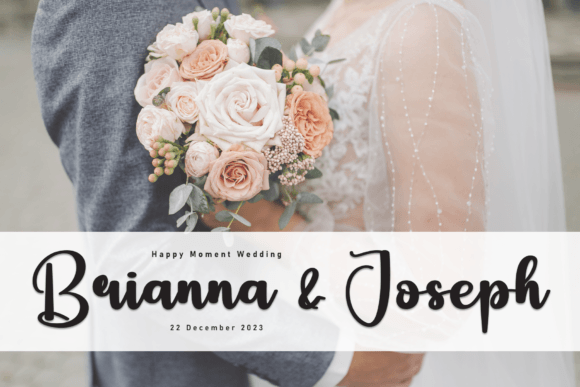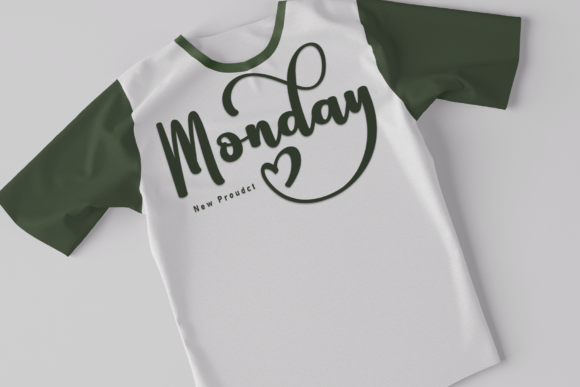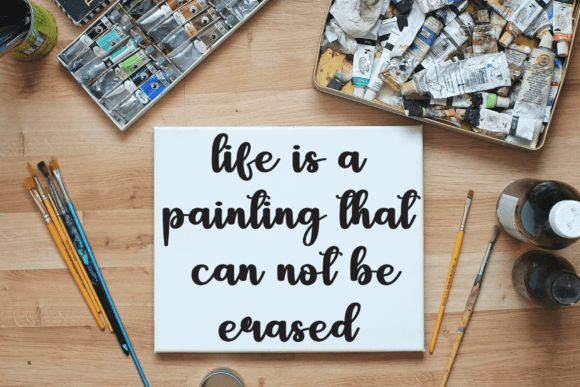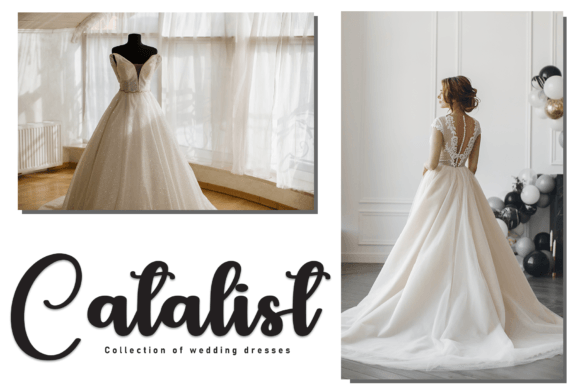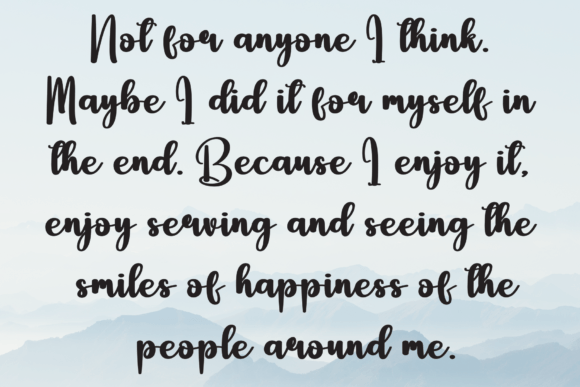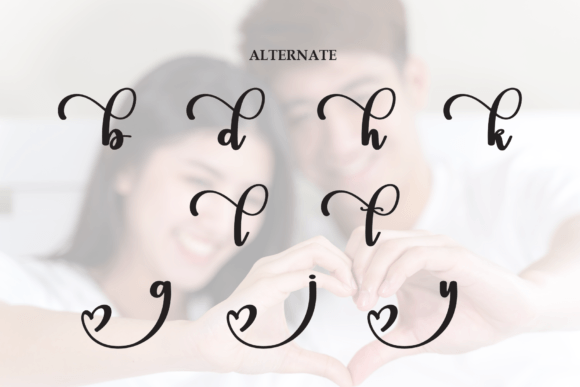
Introduction to Hubby Font
Do you remember that moment when you stumbled upon the perfect font for your creative project, and everything just fell into place? For designers, that ‘aha’ moment is priceless, and it’s what makes the search for the right font so exciting. In this article, we’ll be exploring one such gem – the Hubby Font – that’s sure to add a touch of warmth and personality to your designs.
Whether you’re working on a wedding invitation, a birthday card, or any other design that requires a fun and friendly vibe, the Hubby Font is an excellent choice. Its high-quality design makes it a valuable resource for any designer looking to add a unique touch to their work.
Key Features of Hubby Font
- High-quality, professional design suitable for various creative projects, including branding and advertising materials.
- Features a transparent background, making it ideal for use on various backgrounds and designs.
- Includes a range of characters, including uppercase and lowercase letters, numbers, and special characters, for comprehensive use in your creative project.
- Designed with a modern aesthetic, making it a great addition to any design resource, and suitable for use in a variety of contexts.
Honest Review: Hubby Font
I recently had the chance to work with the Hubby Font and I’m excited to share my thoughts. This font has quickly become a go-to design resource for me and my team.
- High-quality design: The Hubby Font is well-crafted and visually appealing, making it perfect for creative projects.
- Transparent background: The font’s transparent background allows for seamless integration with images and other design elements.
- Limited character set: The font’s character set is somewhat limited, which may not be suitable for projects that require a wide range of characters.
- Not suitable for large-scale projects: While the font is great for small-scale projects, it may not be the best choice for large-scale projects that require a high level of consistency.
Overall, I’m impressed with the Hubby Font. Its high-quality design and transparent background make it a valuable addition to any designer’s toolkit. While it may have some limitations, I believe it’s a great resource for designers working on smaller-scale projects.
Use the Hubby Font in combination with other design elements to create visually appealing designs. Experiment with different font sizes, colors, and styles to get the most out of the font. The font’s transparent background feature makes it ideal for creative projects that require layering.
The Hubby Font is suitable for various creative projects, including graphic design, digital art, and web design. It’s also ideal for presentations, documents, and social media graphics. With its high-quality design and transparent background feature, the Hubby Font is a versatile and valuable design resource.